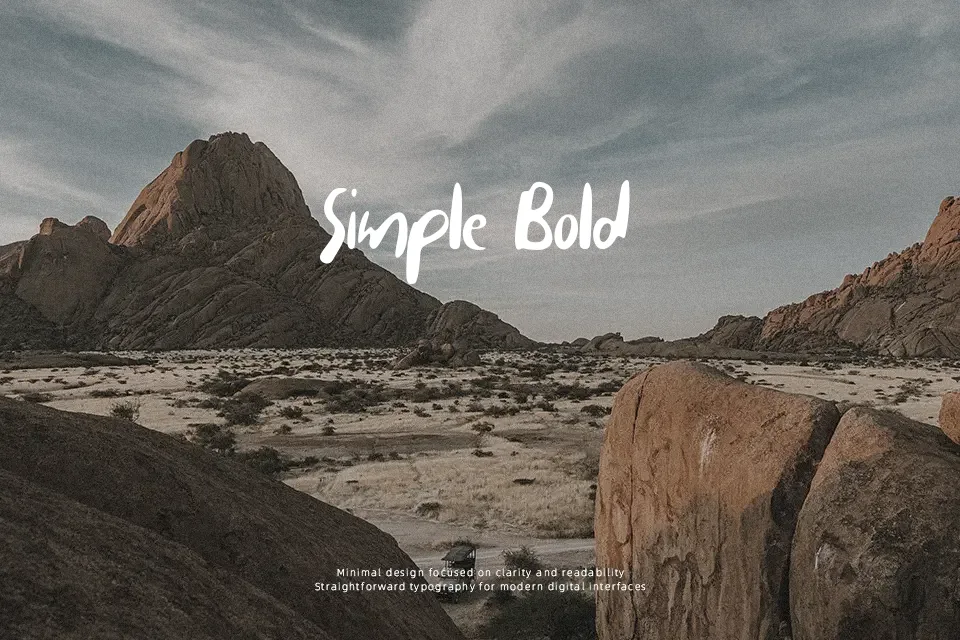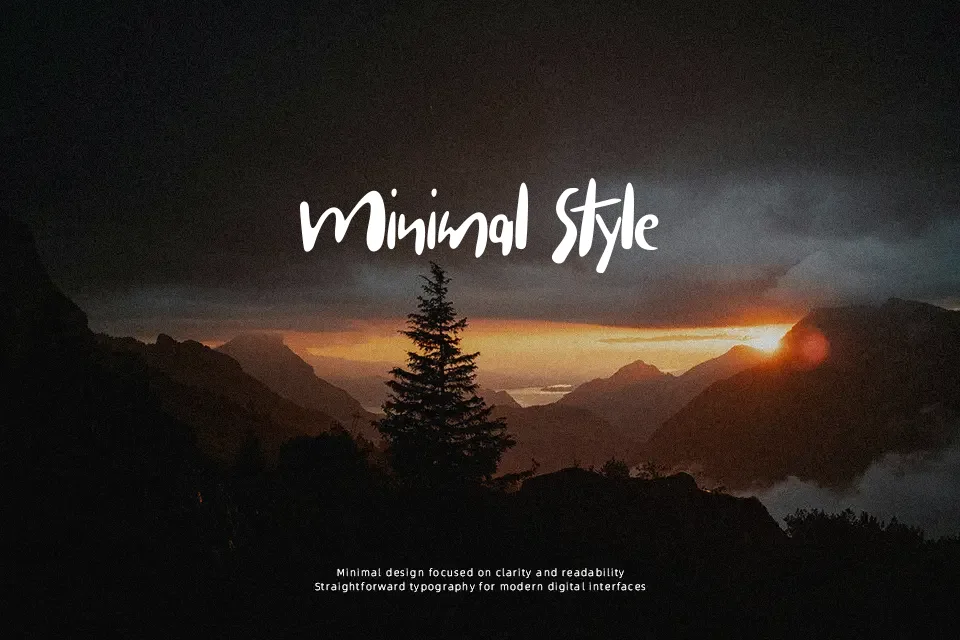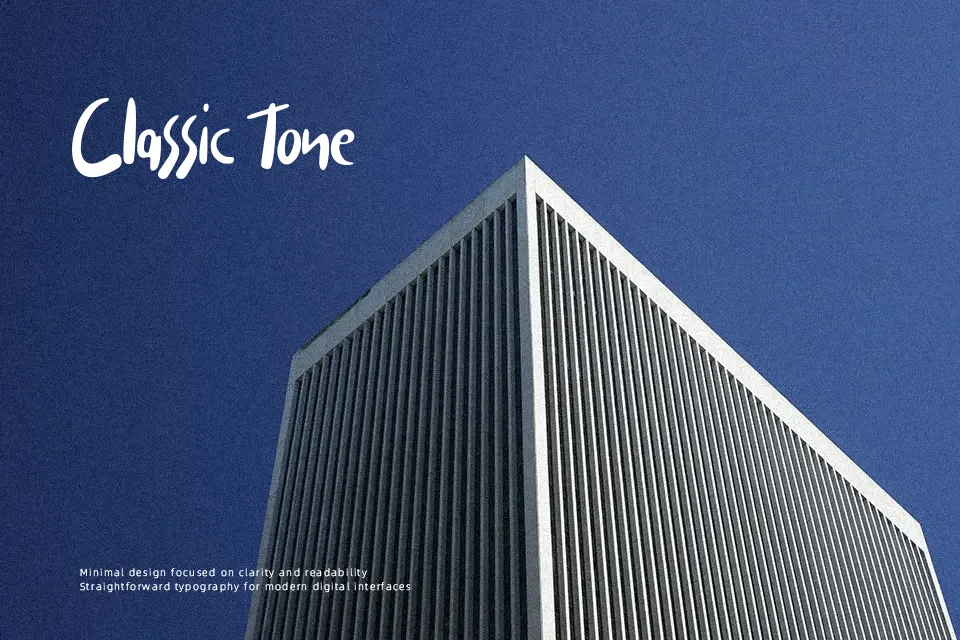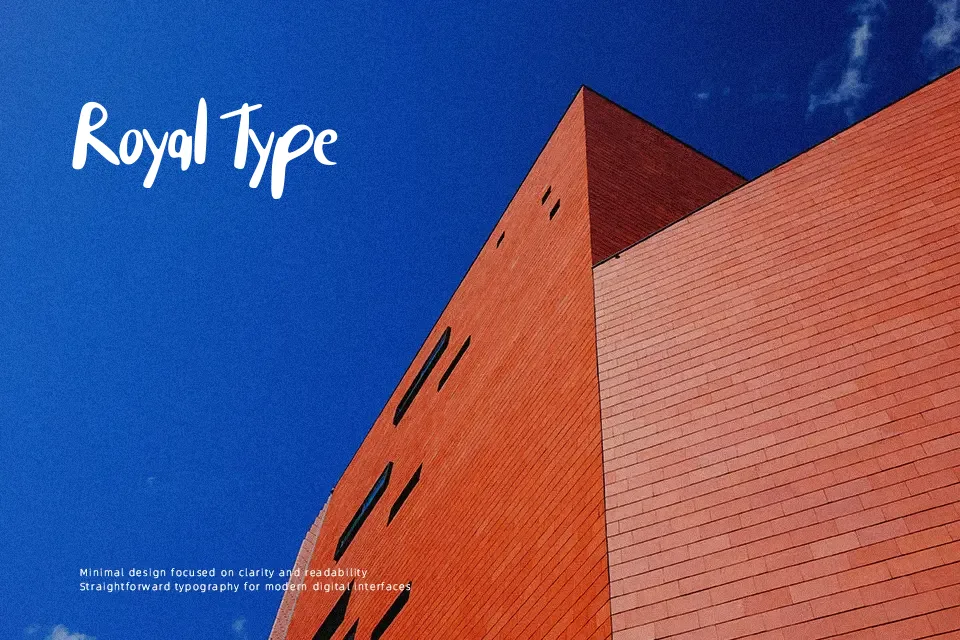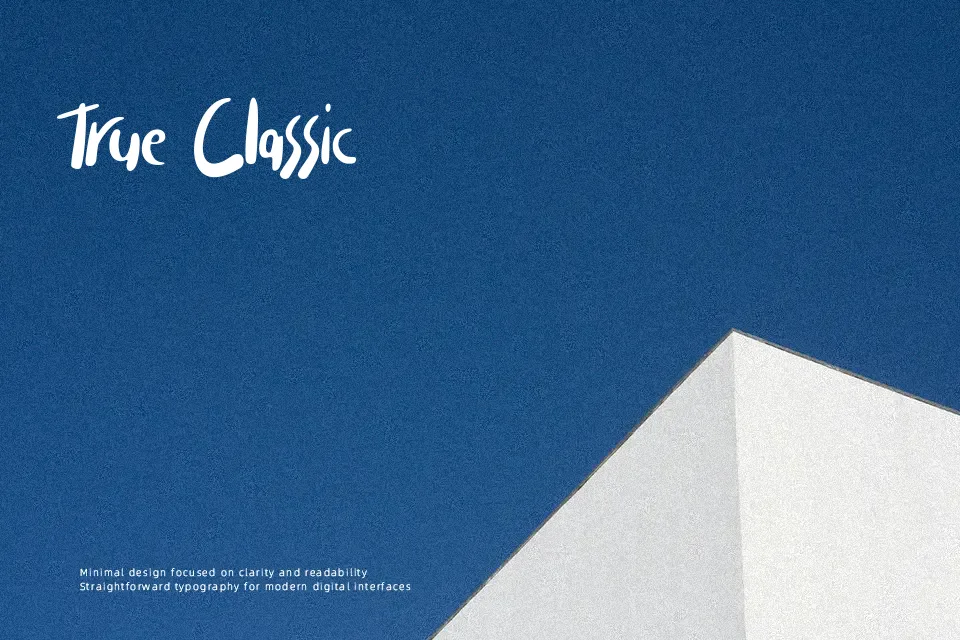
Carista Font
Designed by Four Lines
Carista Font presents an animated comic aesthetic shaped by thick, consistent strokes and soft terminal curves. The letterforms maintain balanced proportions with uniform character widths and moderate inter-letter spacing, creating a lively visual rhythm across headline compositions. While the heavy weight provides excellent readability in prominent display settings such as event posters, arcade graphics, and toy branding, the compact counters struggle in dense editorial paragraphs. The generous stroke weight ensures immediate legibility across large-format media, though tight inner counters reduce clarity at smaller scales. Designers will find the typeface most effective when applied to concise phrases that require high visual energy.
Best For: children book covers, animated title cards, toy packaging, arcade posters
Not Ideal For: dense body text, corporate annual reports, small mobile captions, legal agreements